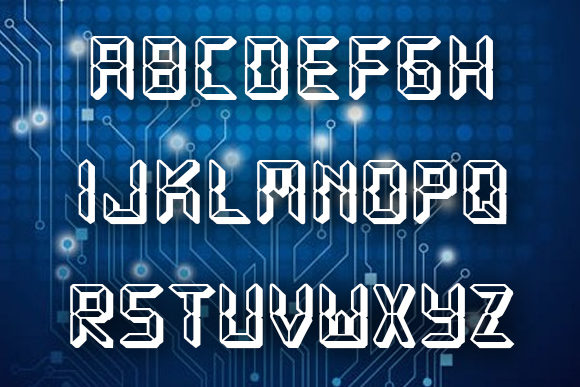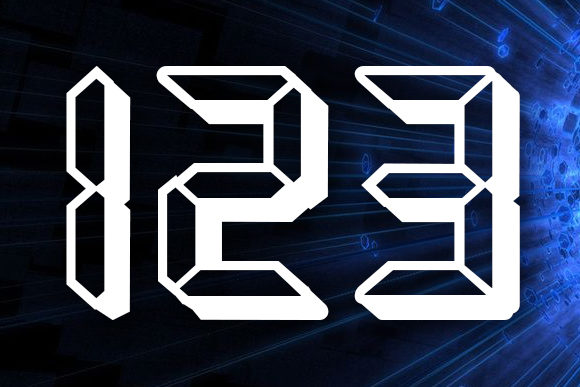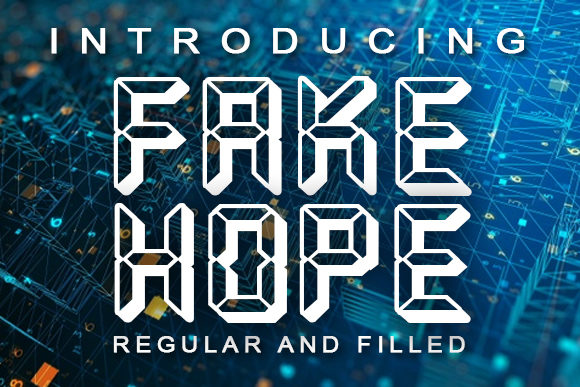
Introducing Fake Hope Font: Adding a Touch of Quirkiness to Your Designs
In the world of typography, fonts play a crucial role in conveying the tone and personality of a design. For designers and crafters looking to add a dash of fun and authenticity to their creative projects, the Fake Hope Font is an excellent choice. This enchanting decorative font is designed to turn any idea into a standout, making it perfect for those who want to make a lasting impression.
What is Fake Hope Font?
Fake Hope Font is a unique and quirky typeface that embodies the spirit of fun and authenticity. Its decorative style is perfect for designers and crafters who want to add a personal touch to their work. Whether you’re creating a logo, branding materials, or craft projects, this font is sure to make your design pop.
Key Features of Fake Hope Font
- Unique and Quirky Design: Fake Hope Font boasts a one-of-a-kind design that is sure to grab attention. Its quirky style makes it perfect for designers and crafters who want to add a touch of personality to their work.
- Decorative Style: This font features a decorative style that is perfect for a variety of design projects, including logos, branding materials, and craft projects.
- Authentic Feel: Fake Hope Font has an authentic feel that makes it perfect for designers and crafters who want to create a genuine connection with their audience.
Uses of Fake Hope Font
Fake Hope Font is a versatile typeface that can be used in a variety of design projects, including:
- Logo Design: This font is perfect for creating unique and memorable logos that stand out from the crowd.
- Branding Materials: Use Fake Hope Font to create branding materials, such as business cards, brochures, and flyers, that reflect your brand’s personality.
- Craft Projects: This font is perfect for crafters who want to add a personal touch to their projects, such as handmade cards, scrapbooking, and DIY crafts.
- Digital Design: Fake Hope Font can also be used in digital design projects, such as social media graphics, blog posts, and website headers.
Why Choose Fake Hope Font?
With so many fonts available, why choose Fake Hope Font? Here are just a few reasons:
- Unique Design: Fake Hope Font has a unique design that is sure to make your design stand out from the crowd.
- Versatile: Fake Hope Font can be used in a variety of design projects, from logos and branding materials to craft projects and digital design.
- Authentic Feel: This font has an authentic feel that makes it perfect for designers and crafters who want to create a genuine connection with their audience.
Fake Hope Font is a unique and quirky typeface that is perfect for designers and crafters who want to add a touch of fun and authenticity to their designs. With its decorative style, authentic feel, and ease of use, this font is sure to become a favorite among designers and crafters. Whether you’re creating a logo, branding materials, or craft projects, Fake Hope Font is an excellent choice. So why wait? Download Fake Hope Font today and start creating standout designs that showcase your personality and style.